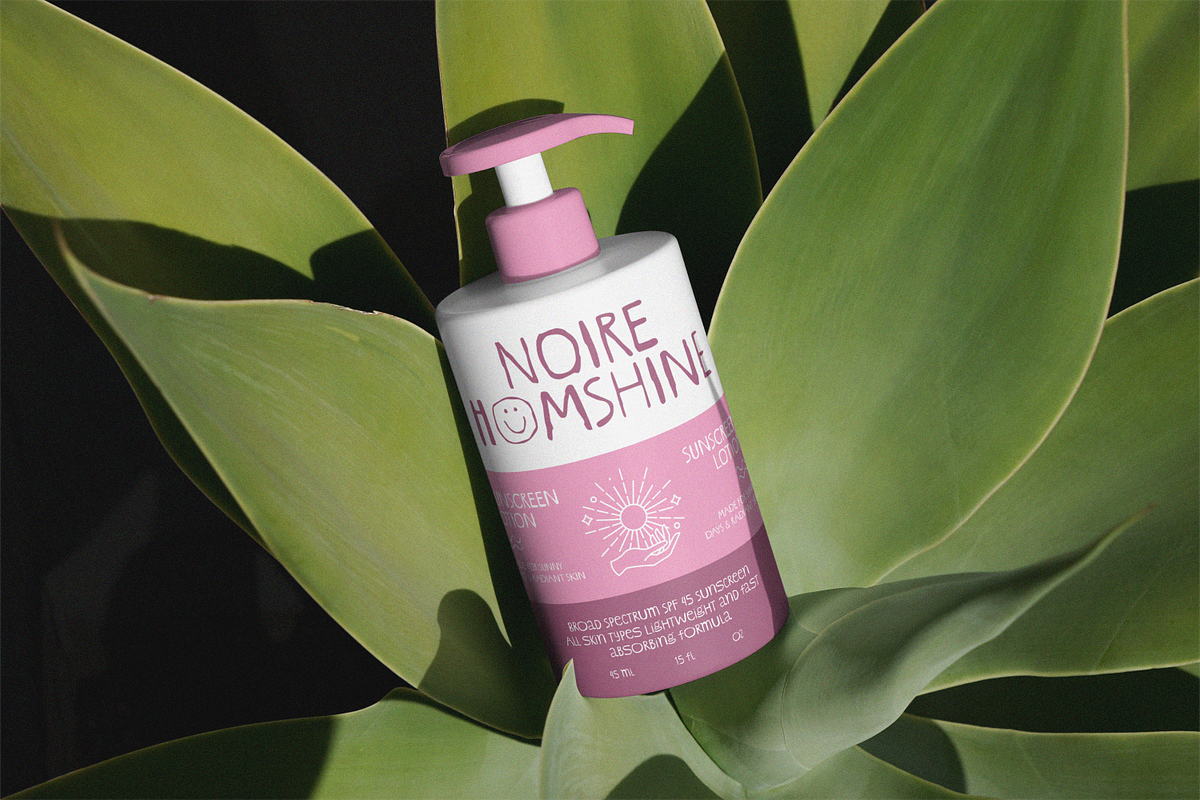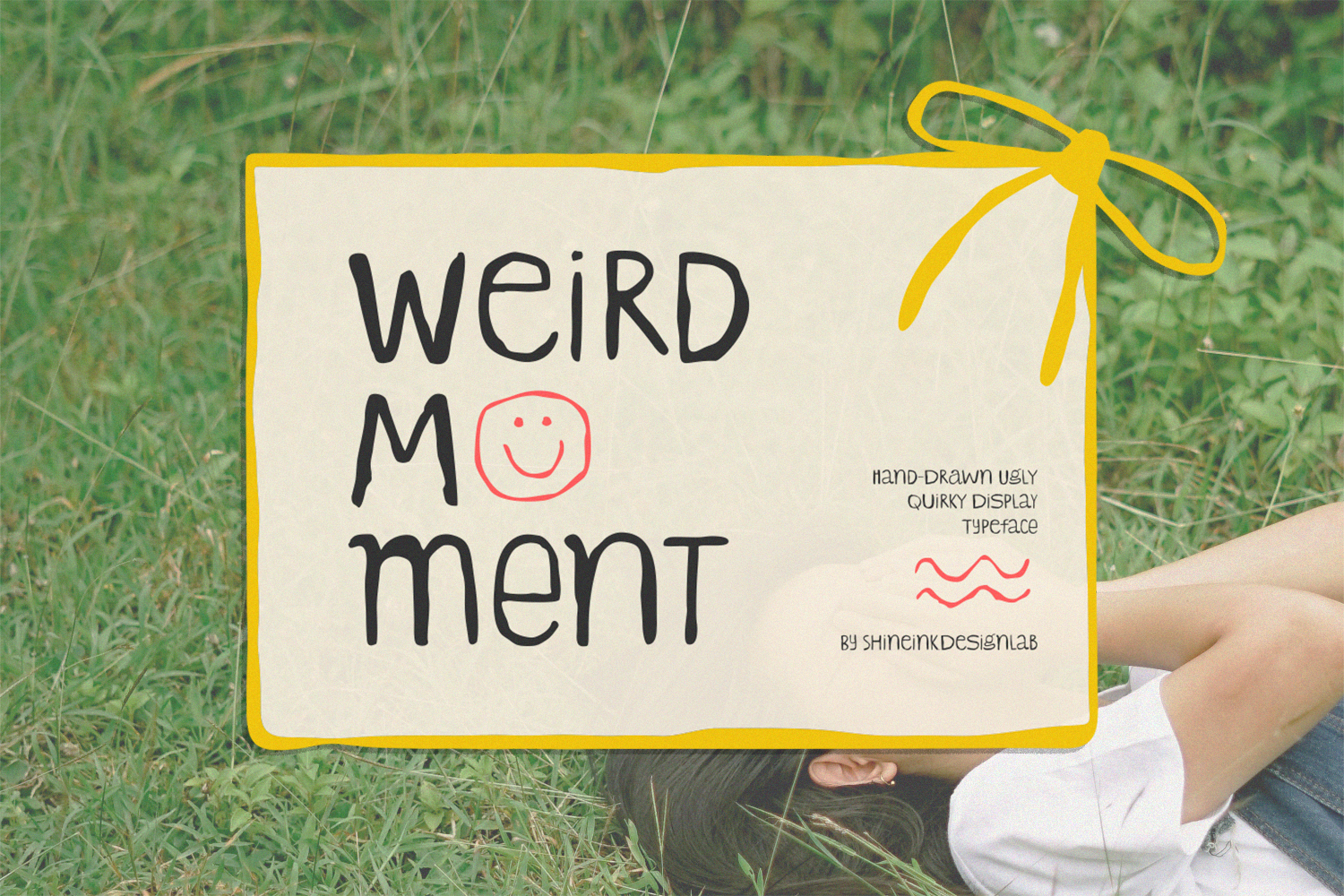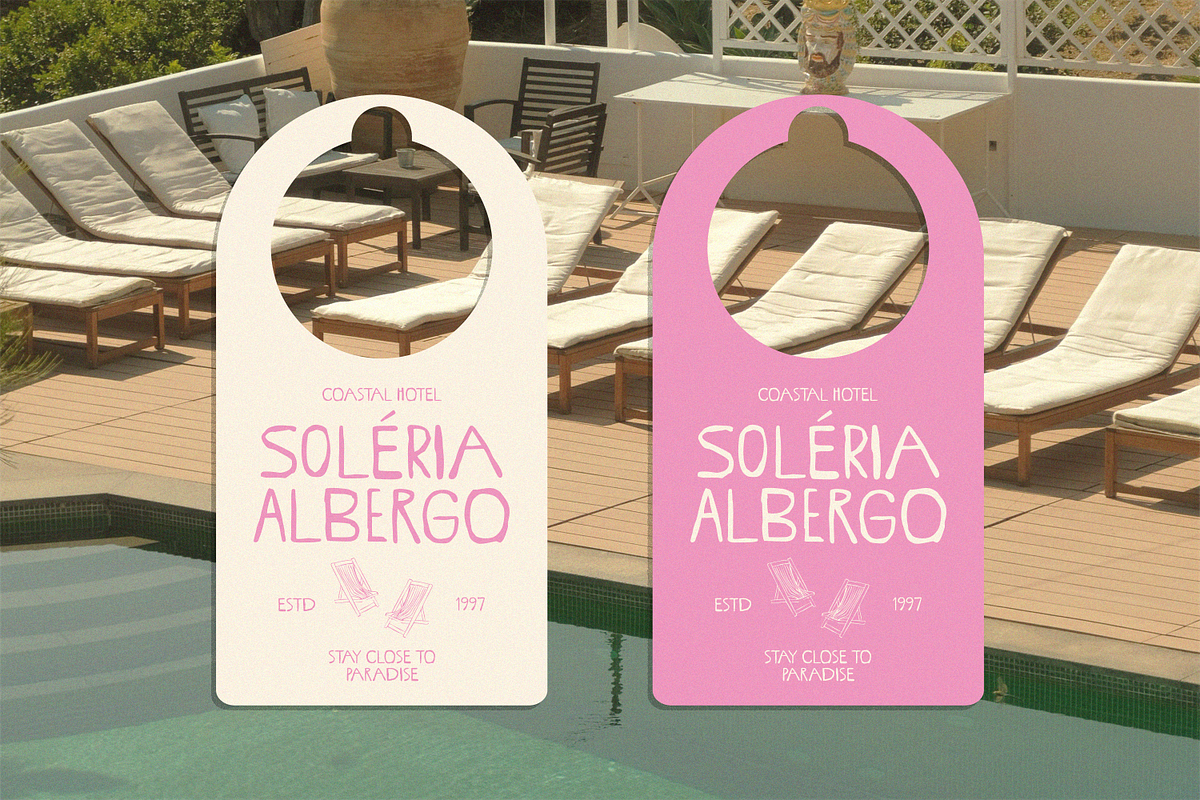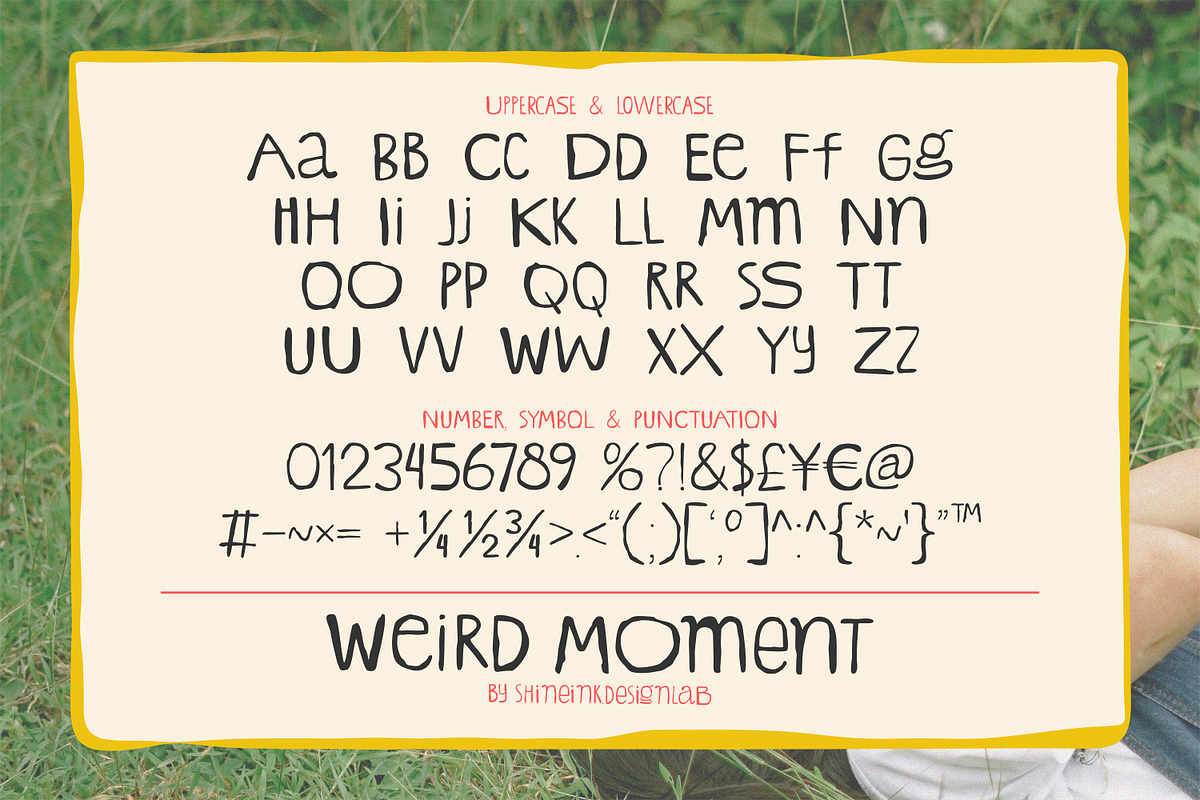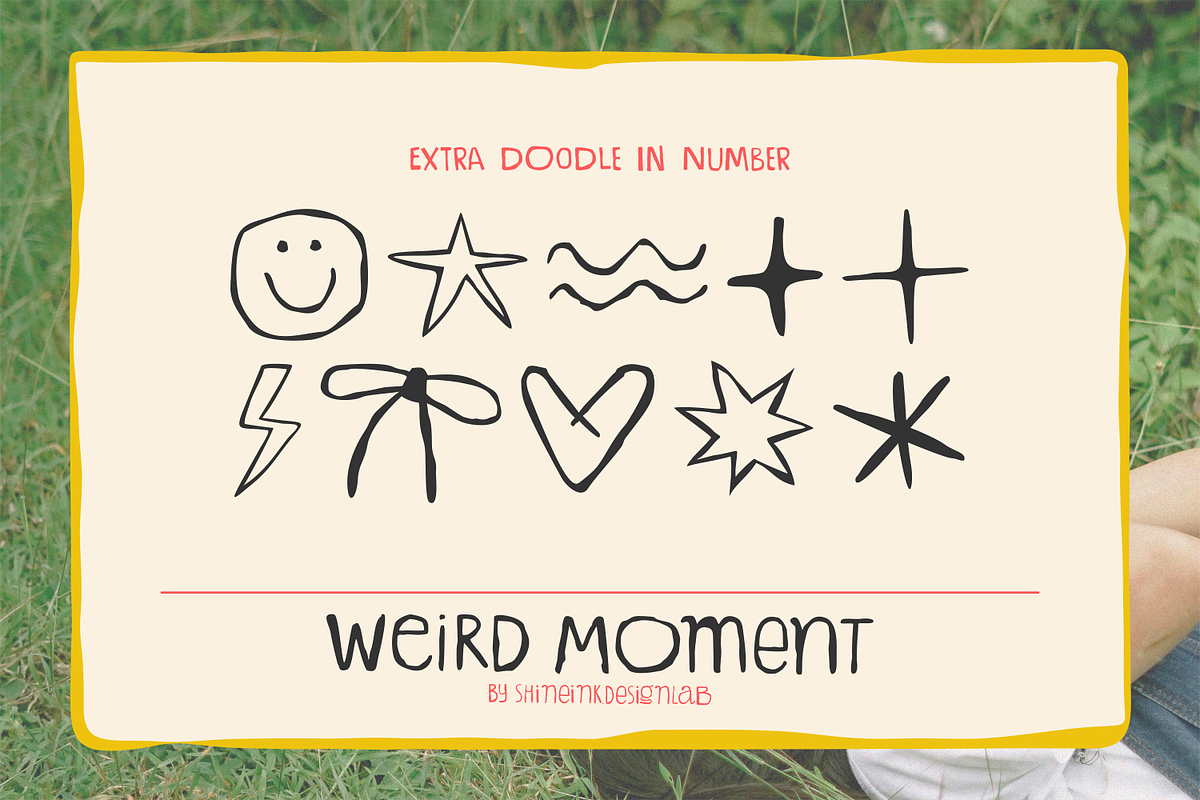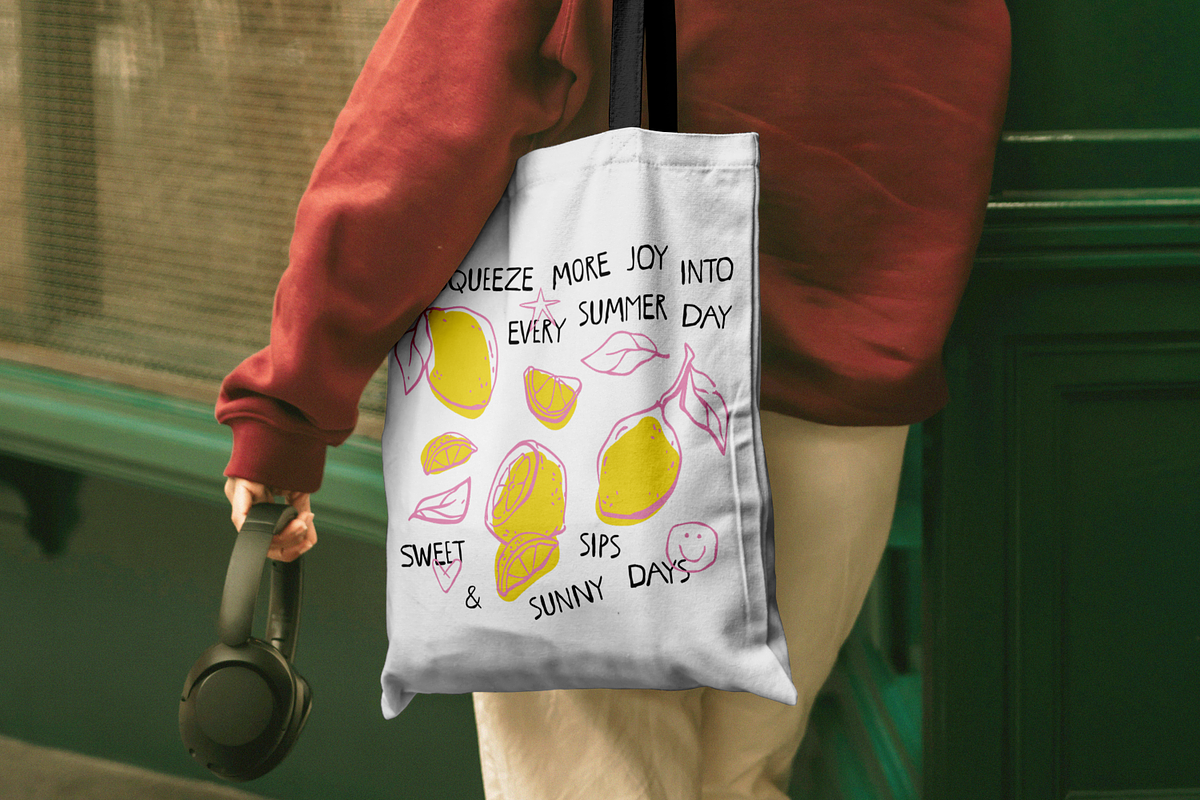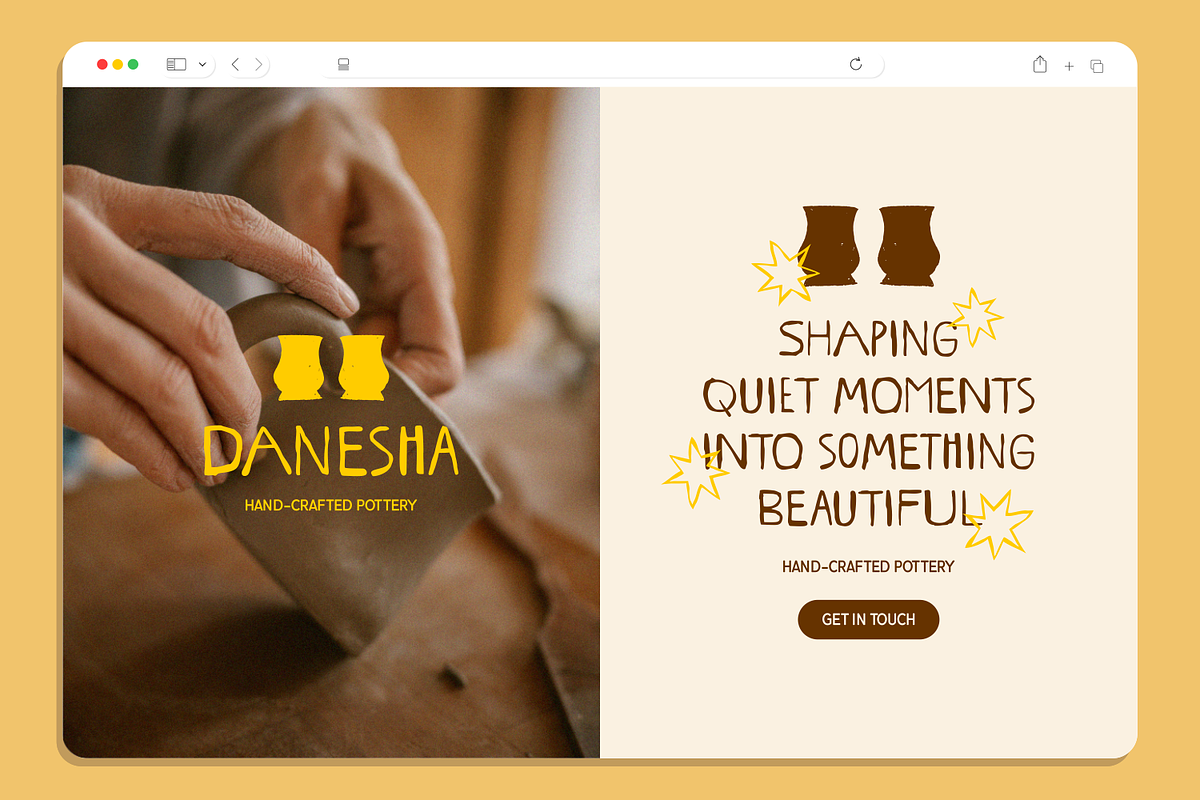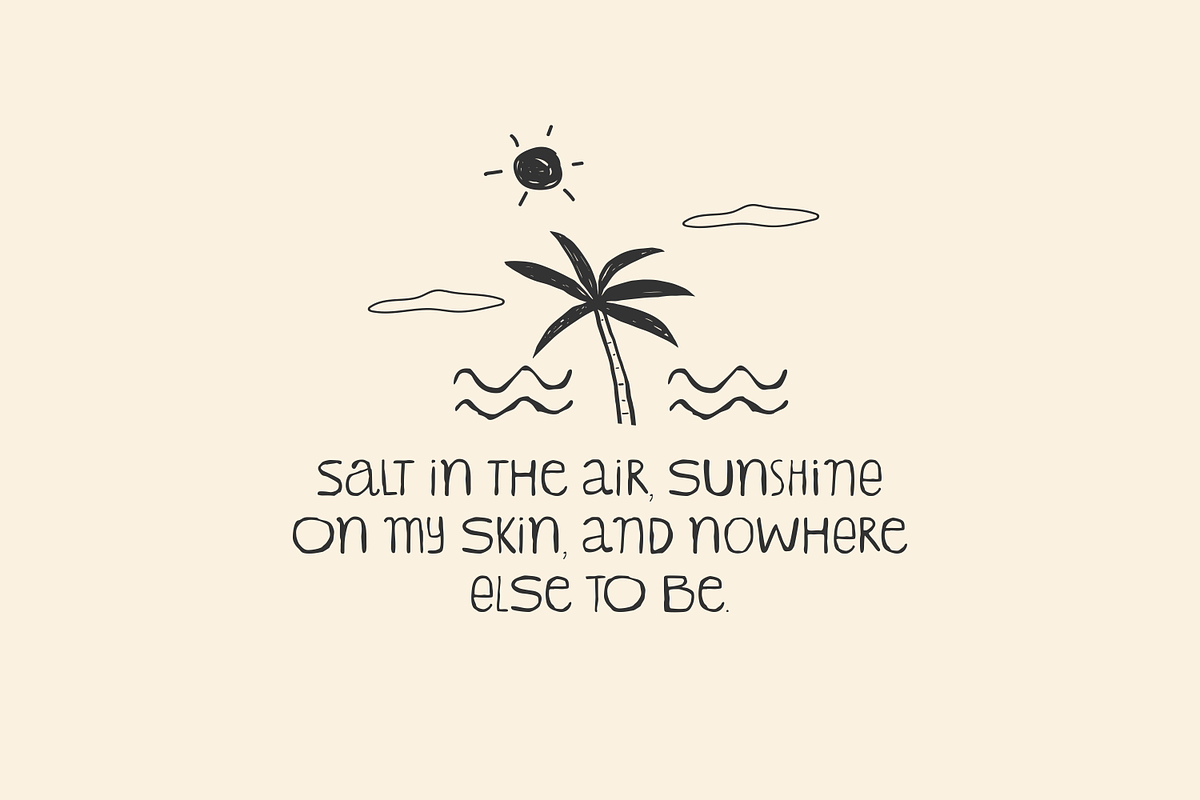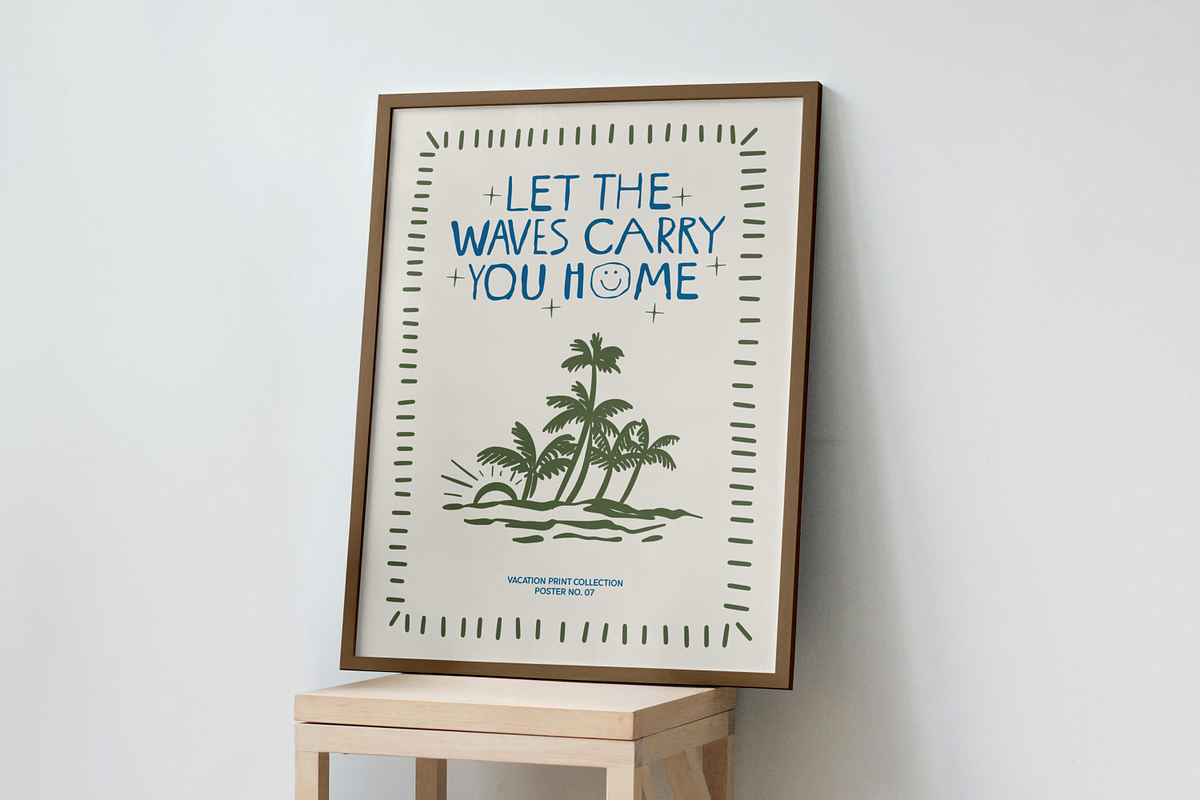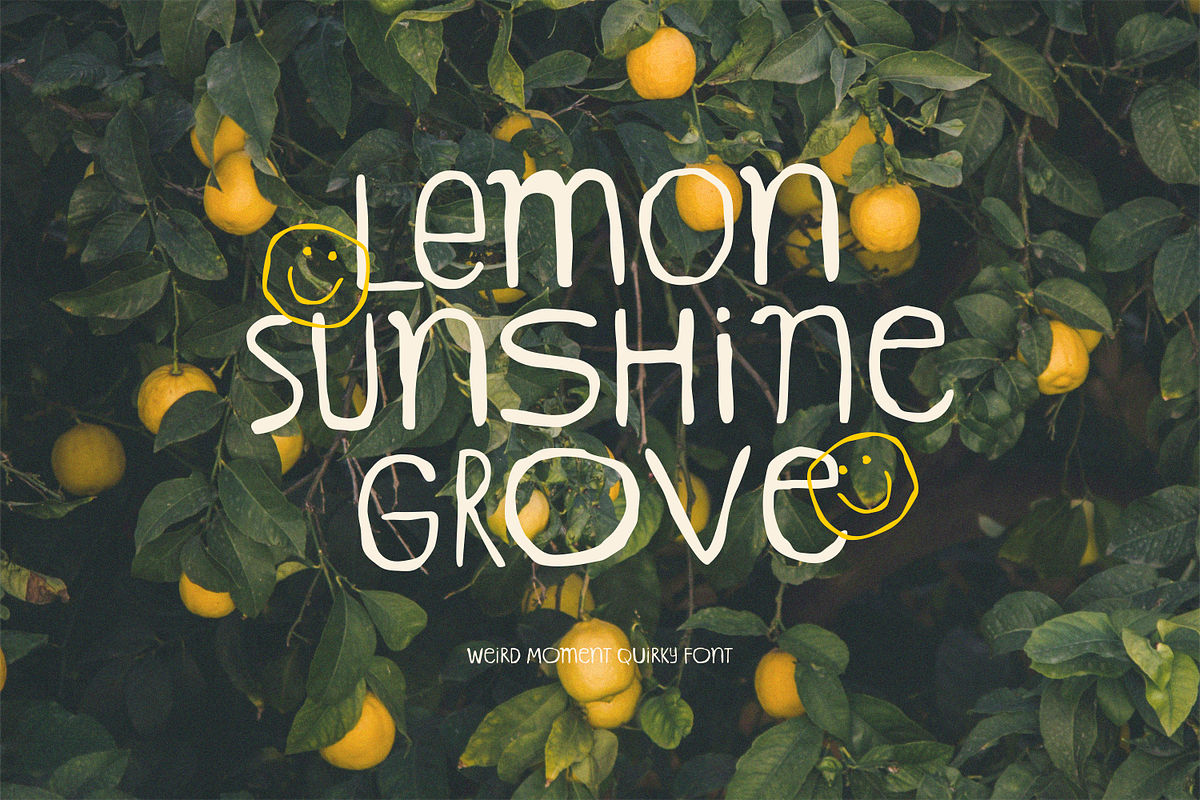
Weird Moment – HandDrawn Quirky Font
Sometimes the weirdest moments become the most memorable ones.
Weird Moment is a playful hand-drawn display font with beautifully imperfect strokes, uneven shapes, and an unapologetically quirky personality. Designed to feel spontaneous and human, this typeface brings a charming “ugly cute” aesthetic that stands out in branding, posters, packaging, and creative projects.
Whether you're creating a nostalgic zine, indie café branding, children's products, scrapbook designs, or expressive social media graphics, Weird Moment adds warmth, humor, and authentic handmade energy to every word.
1. Lowercase and Uppercase
2. Numerals & Punctuation
3. Accented characters
4. Multiple Languages Supported
6. Unique Alternate Uppercase & Lowercase
7. Extra Doodle in Alternate Number
Embrace the imperfect. Make every design a Weird Moment.